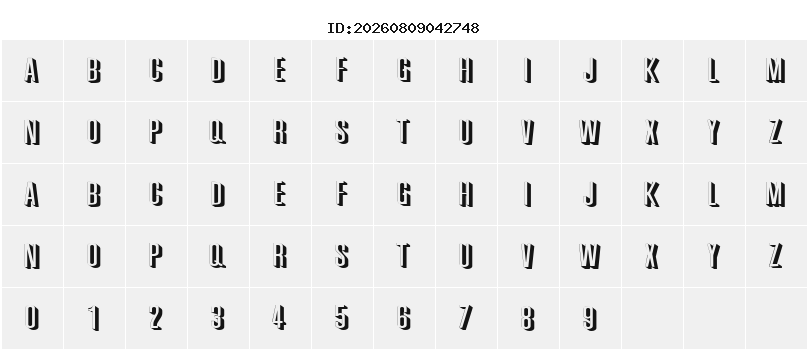
Phoenix-Extended Preview
• Font Name: Phoenix-Extended
• Full Font Name: Phoenix-Extended Normal
About Phoenix-Extended.ttf
Phoenix-Extended.ttf is a modern, elegant sans-serif font designed for ultimate readability and visual harmony. Perfect for branding, headlines, web design, and print materials.